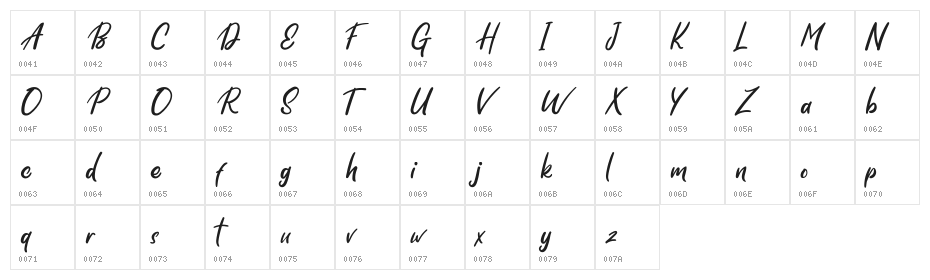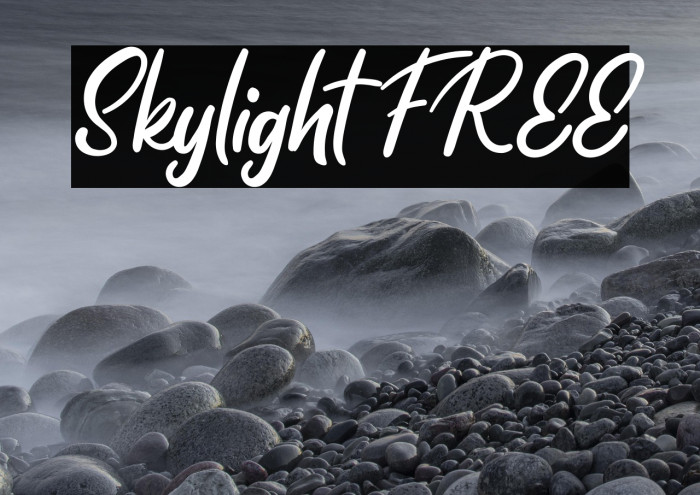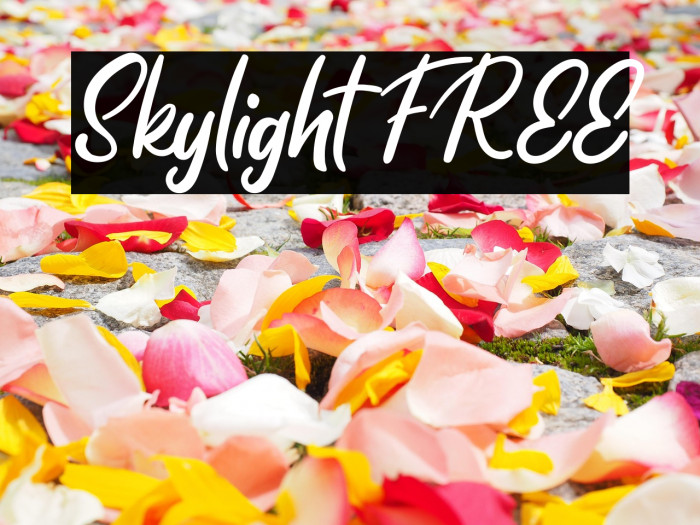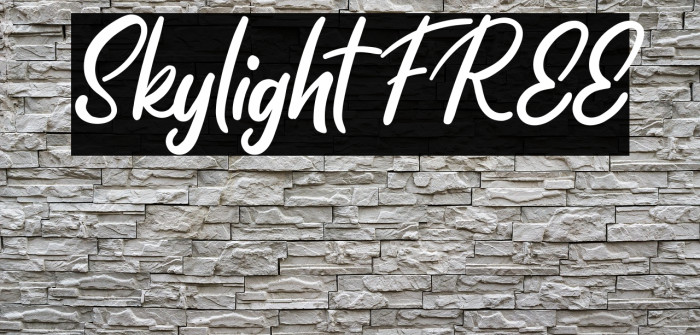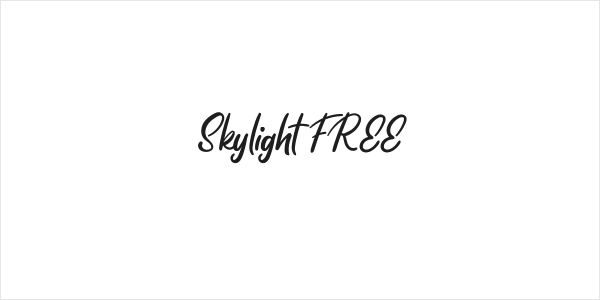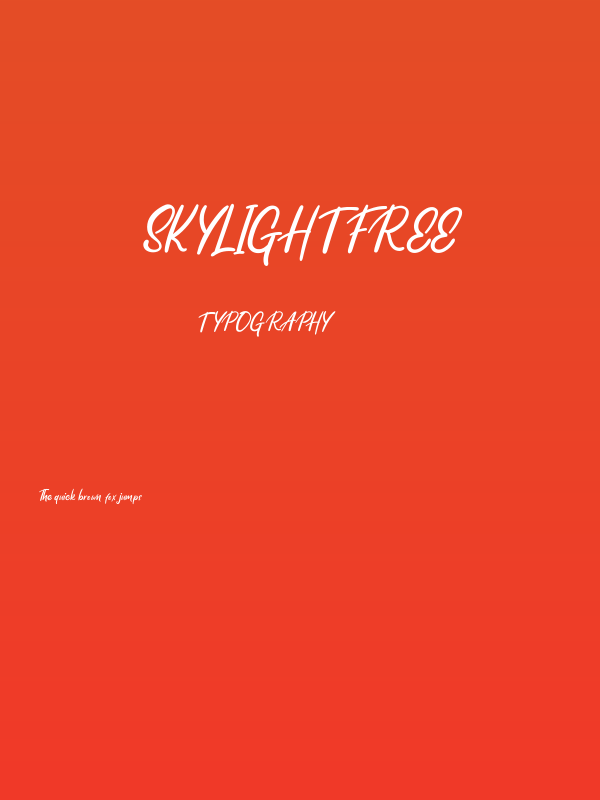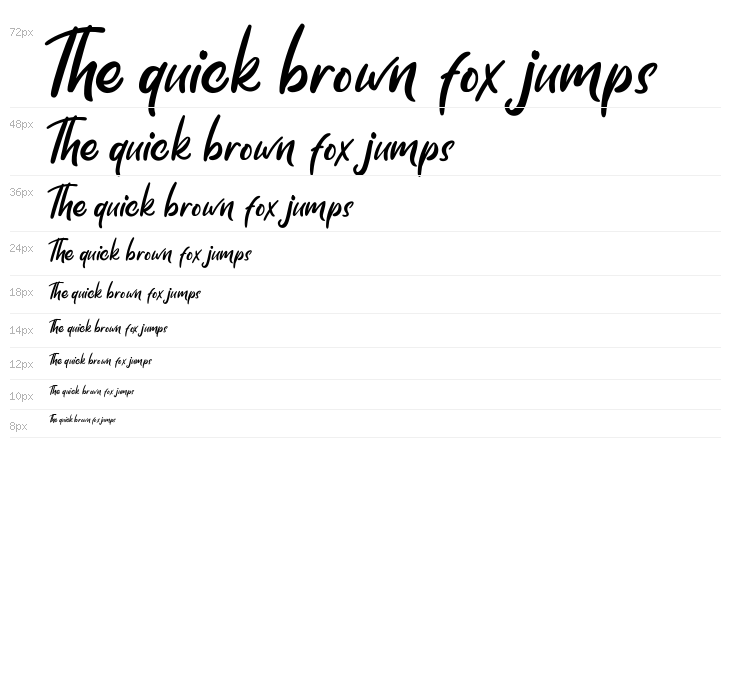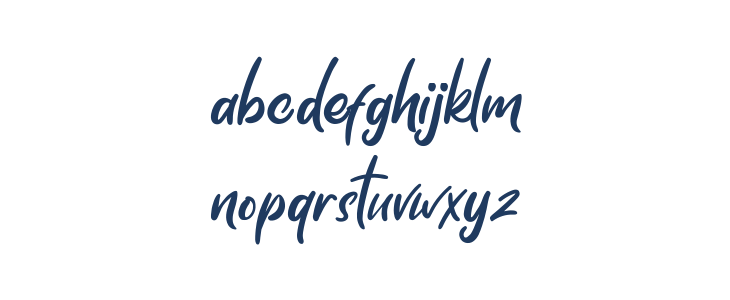
Skylight FREE Font
Skylight FREE Description
This font features a dynamic and fluid script style, characterized by its smooth, flowing lines and elegant curves. The uppercase letters are bold and slightly slanted, giving a sense of movement and energy. The lowercase letters maintain a cohesive look with their connected strokes, enhancing the script's handwritten appearance. The numbers and special characters are designed to match the overall style, ensuring consistency across all elements. This font's playful yet sophisticated design makes it suitable for a variety of creative applications.